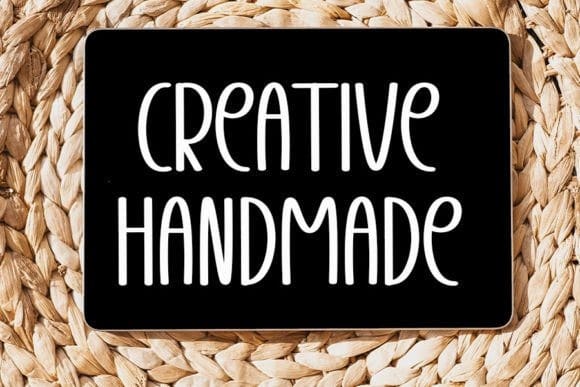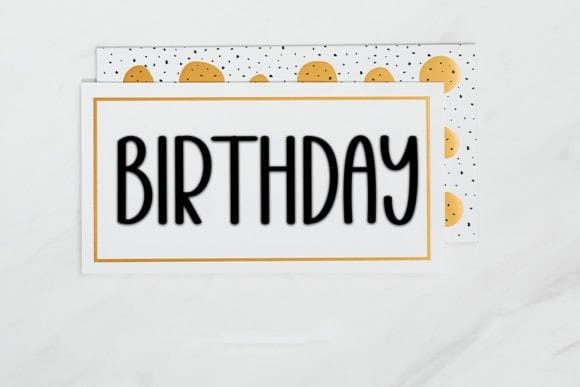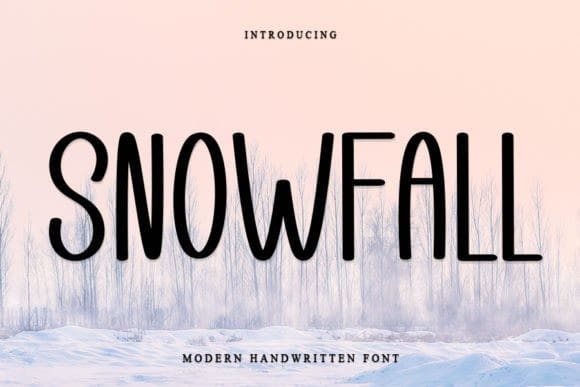
Snowfall Playful Font
Snowfall Playful Font, is a neat and beautiful handwritten font described by an elegant touch, perfect for your favorite projects. Fall in love with its incredibly distinct and timeless style, and use it to create spectacular designs!